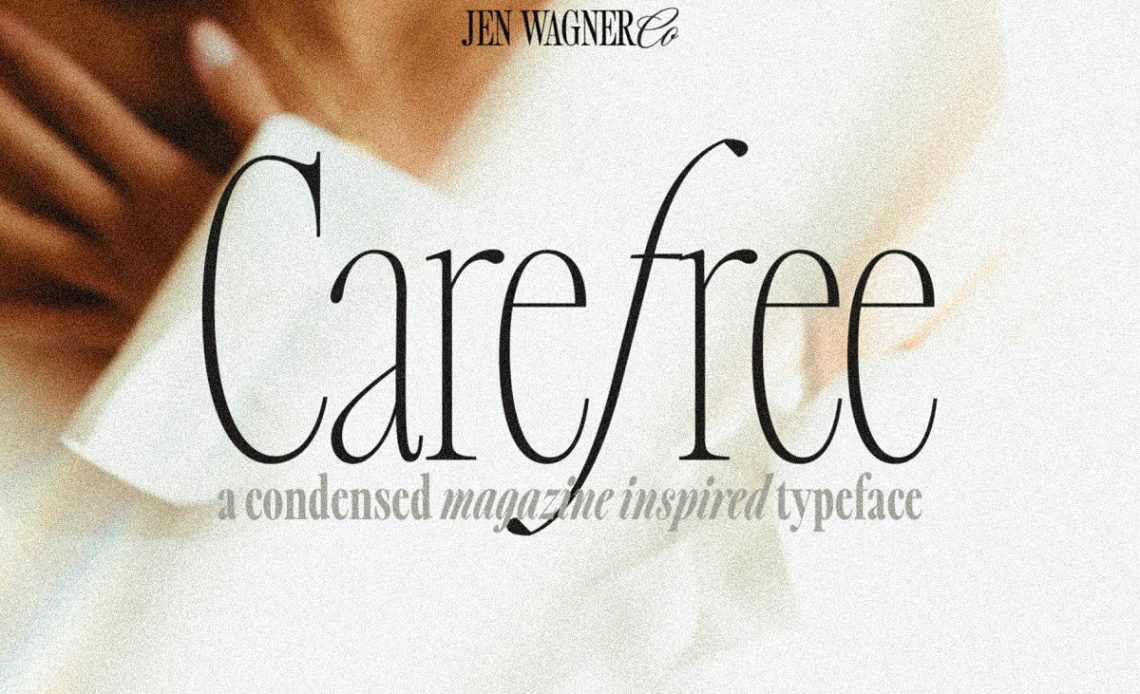
Are you looking for a beautiful condensed serif typeface that can make your designs stand out? Look no further than Carefree! Created by the talented Jen Wagner, this 16-font family includes regular and italic styles, ranging from Hairline to Bold. Despite its name, Carefree was anything but easy to design, but the results speak for themselves.
Carefree is perfect for adding a touch of elegance and sophistication to your designs, whether you're creating a logo, a headline, or a quote. Its sharp angled italics are particularly striking, making it easy to create bold, eye-catching designs. And with a range of weights to choose from, you can easily mix and match to create a custom look that perfectly suits your project.
If you're looking for font pairings, we recommend Essential Sans for a modern, clean look, or Herr Von Muellerhoff for a more traditional, script-style pairing. And if you want to create an all-caps look, just tighten up the letter spacing a bit to achieve the trendy effect.
Whether you're a designer, blogger, or just looking to add a touch of style to your personal projects, Carefree is the perfect choice. With its clean lines, beautiful curves, and wide range of styles, this font family is sure to become a go-to for all your design needs. So why wait? Download Carefree today and start creating beautiful, captivating designs that will make you stand out from the crowd!